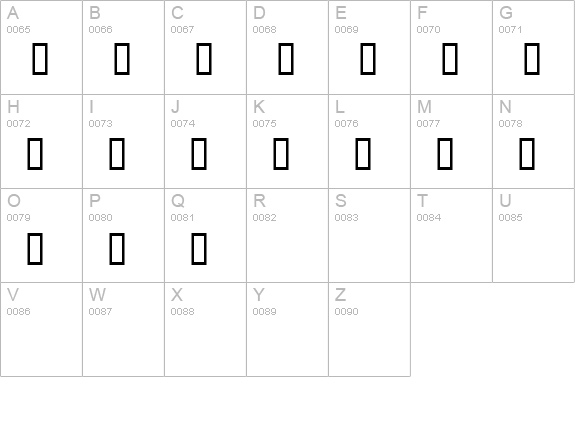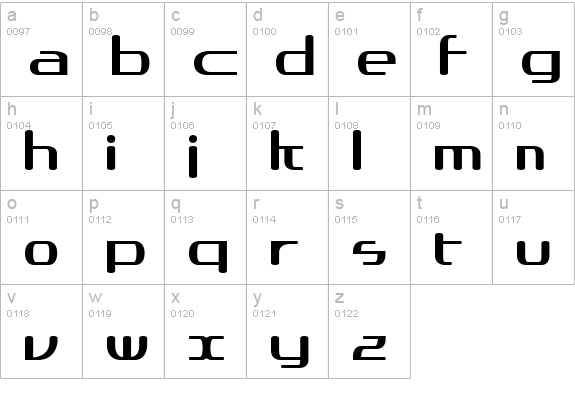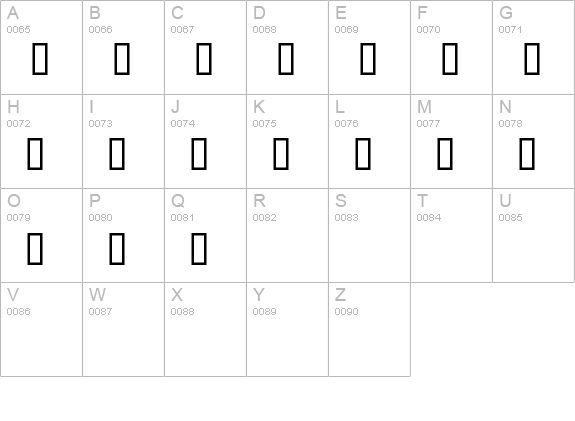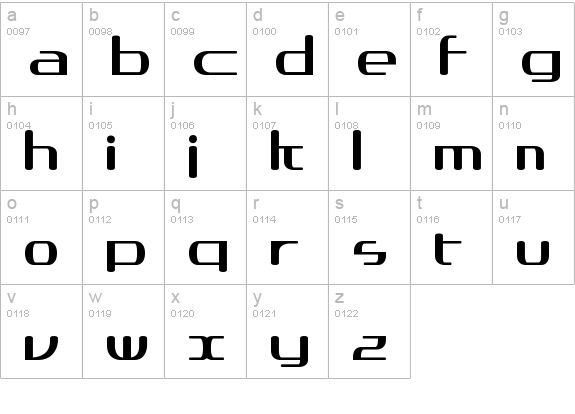
asos19101357 Font Details
The asos19101357 font is a versatile and stylish typeface that combines modern design elements with a touch of sophistication. Its sleek lines and unique letterforms make it perfect for a wide range of design projects, from branding to editorial design. This font is freely available to download at FontsMarket.com, making it accessible to designers and creatives looking to add a touch of elegance to their work. With its clean and precise lettering, the asos19101357 font is sure to make a statement and elevate any project it is used in. Whether you're working on a website, print materials, or any other design project, the asos19101357 font is a versatile choice that will help you stand out from the crowd. Download it today and start adding a touch of sophistication to your designs.